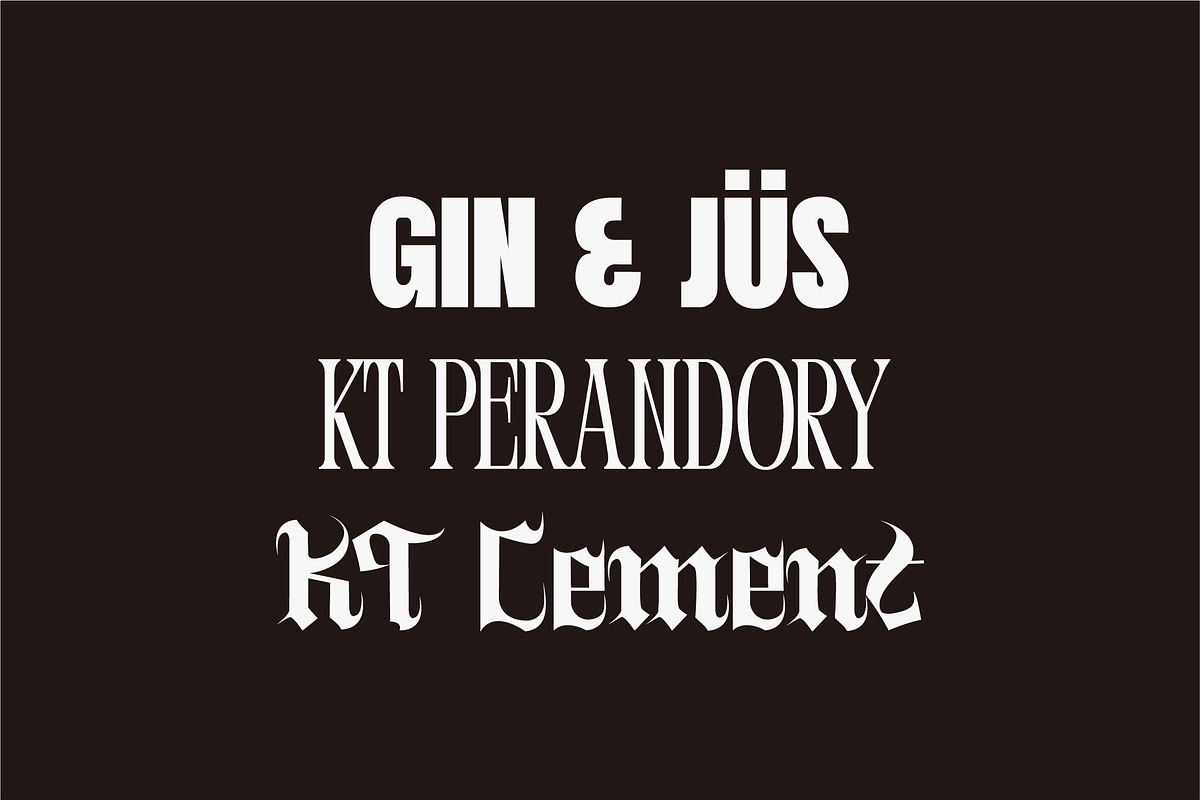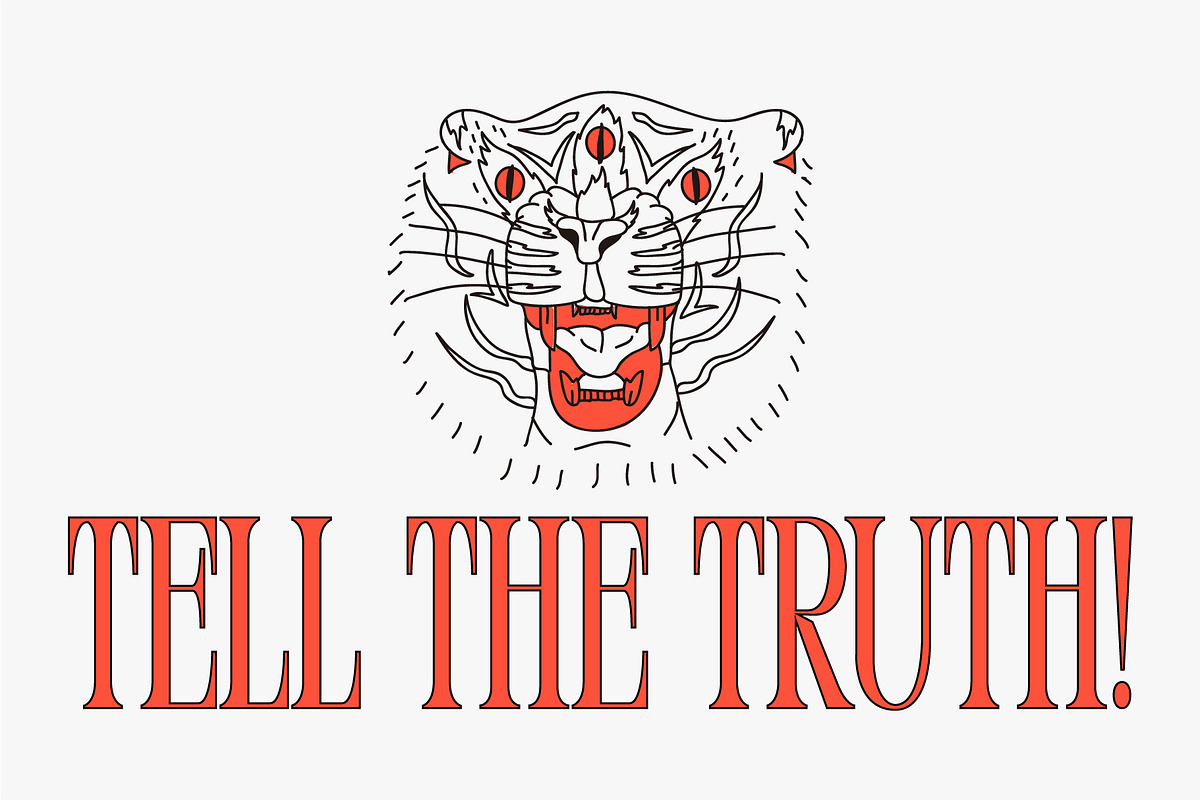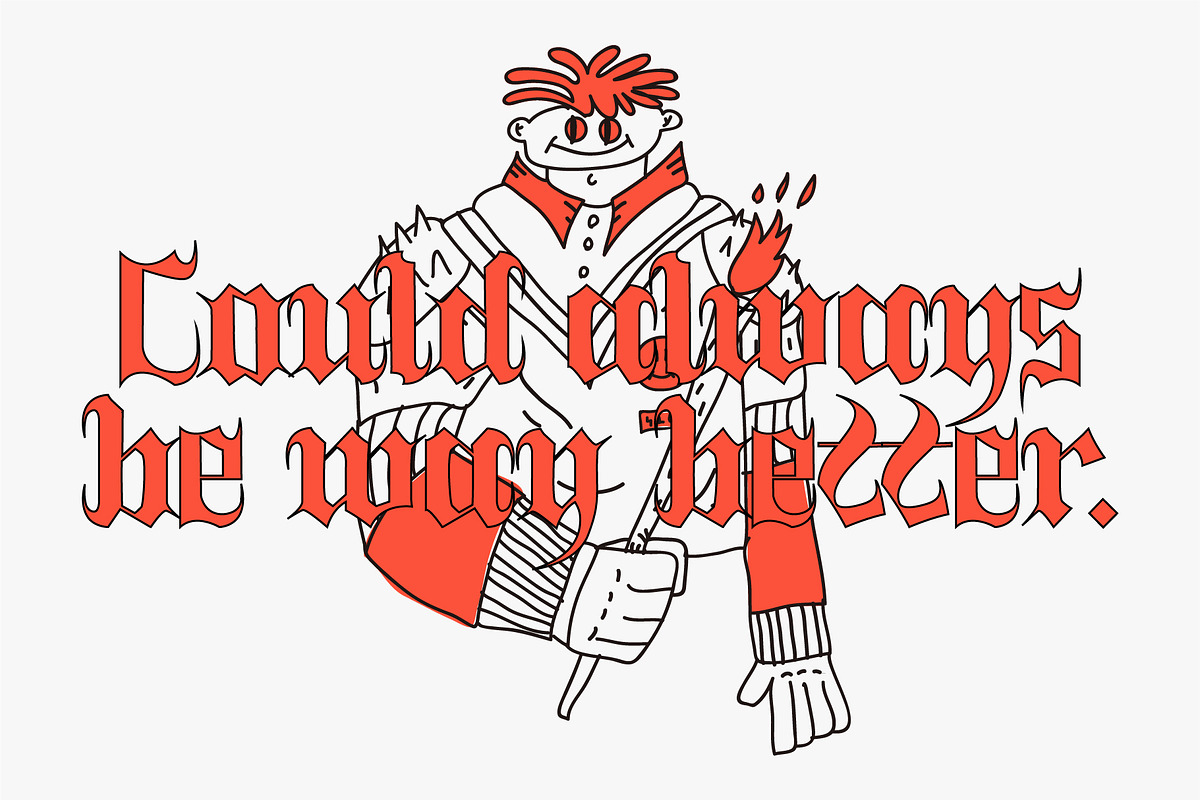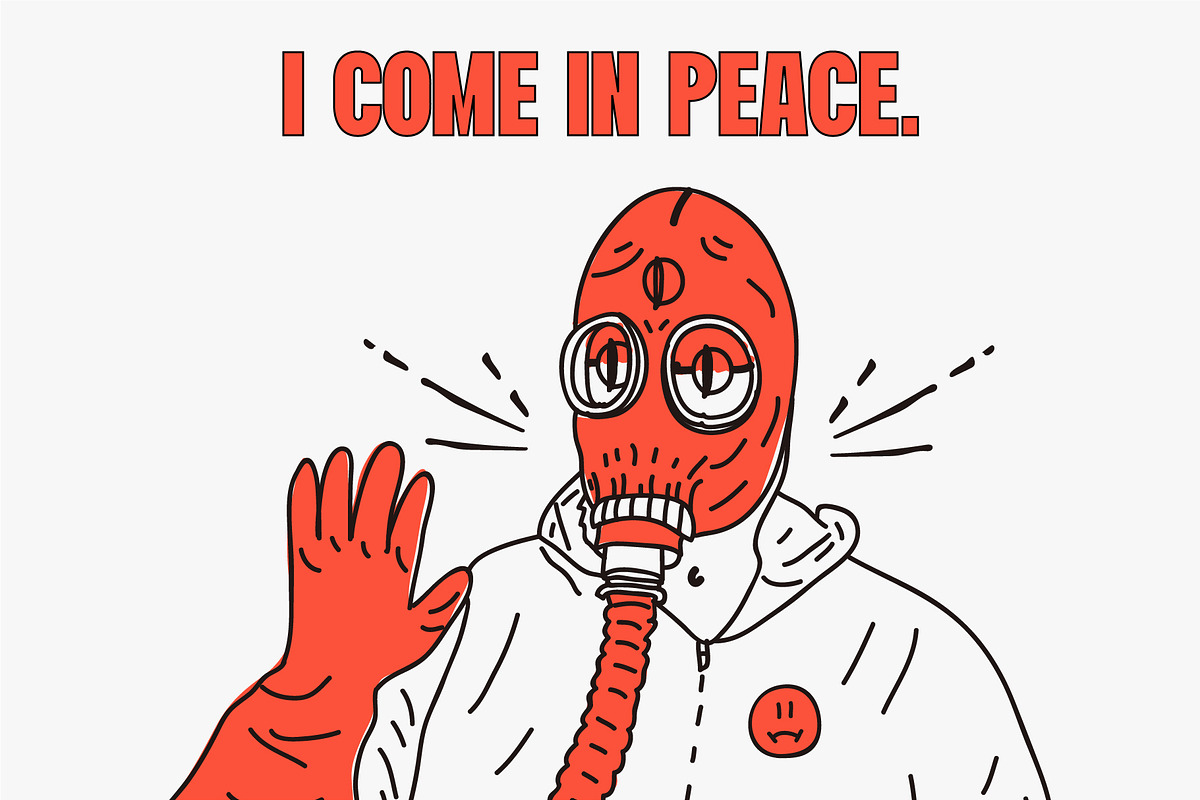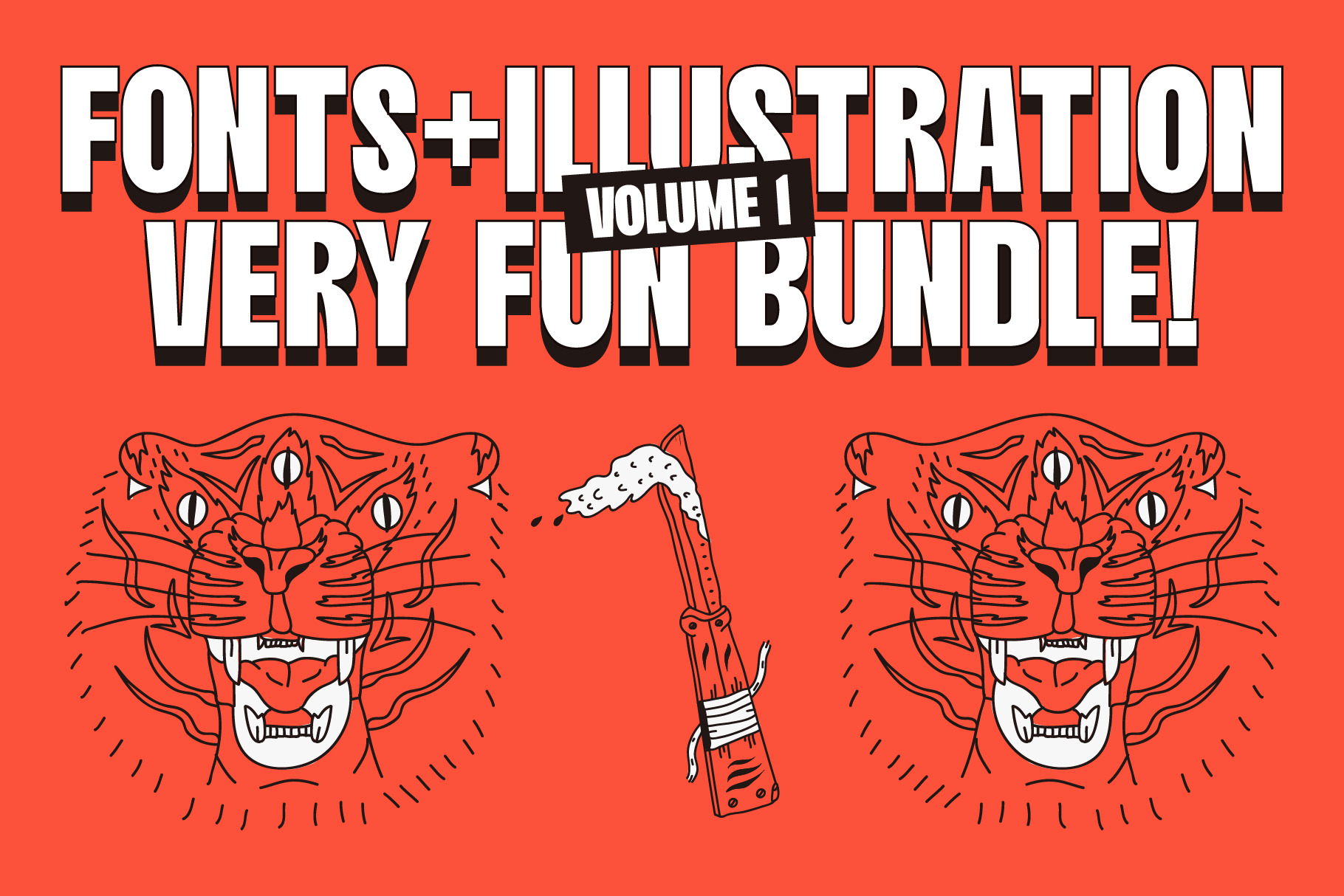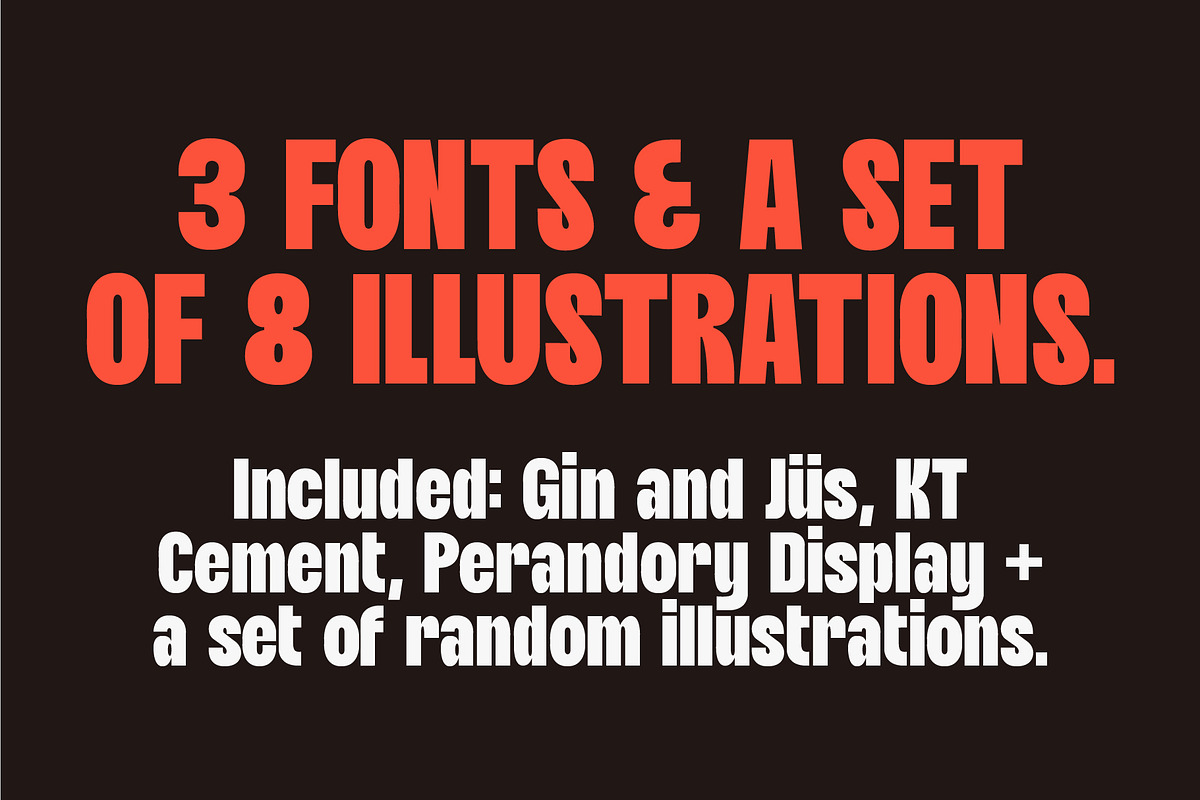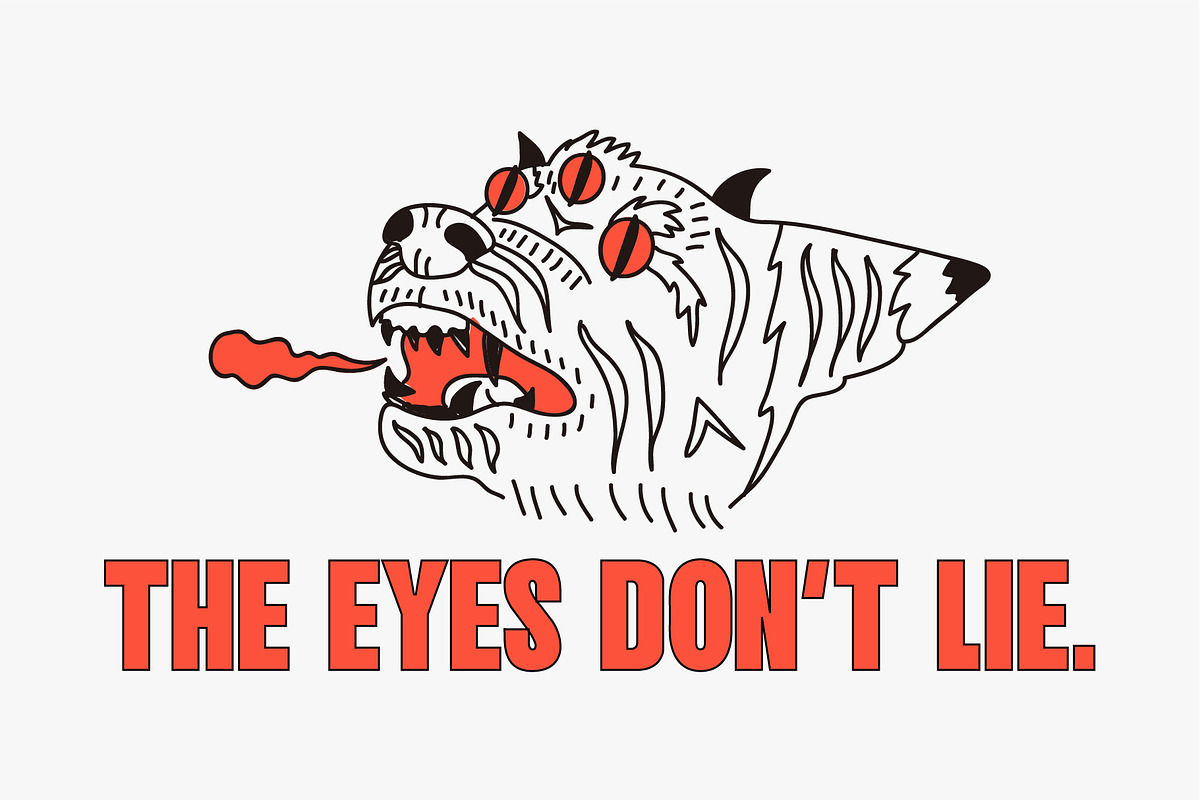
Fonts + Illustration Bundle
A new addition to Kulturë! Our first bundle that includes some illustrations. 3 handpicked types + 8 random illustrations! Gin & Jüs, Perandory, KT Cement. A perfect mix filled with fun & grunge feels.
Type weights / styles: Gin & Jüs Regular + Italic, Perandory Condensed, Semi Condensed + Regular, KT Cement Regular.